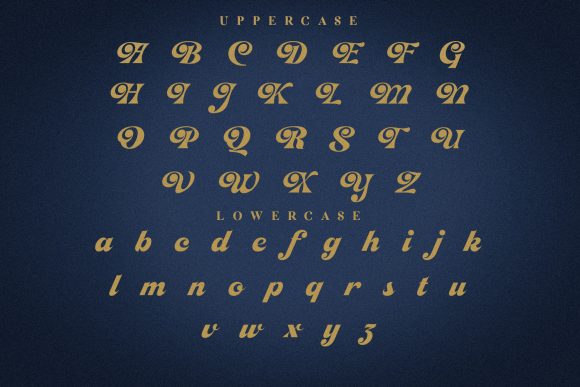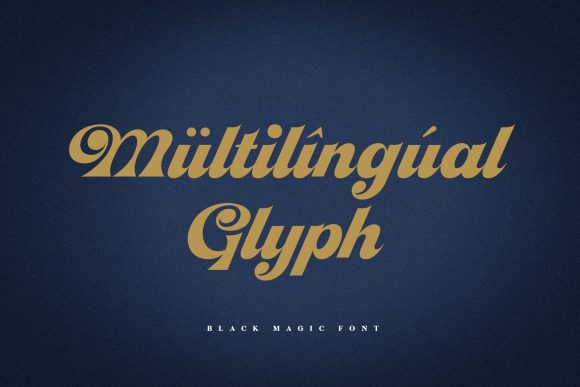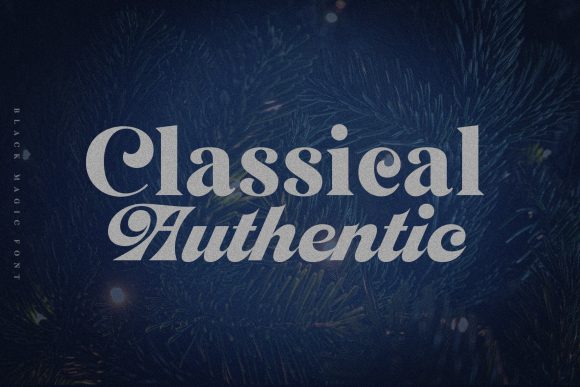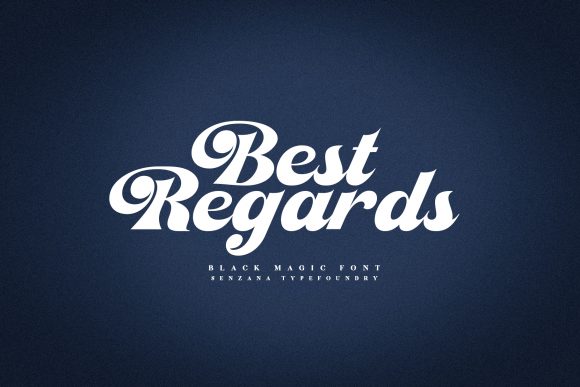
Unleash the Power of Black Magic Font: Elevate Your Designs with a Bold and Assertive Handwritten Style
In the world of typography, fonts play a crucial role in conveying the tone and personality of a design. Whether you’re a seasoned designer or a crafty DIY enthusiast, finding the right font can make all the difference in creating visually stunning and effective designs. If you’re on the hunt for a font that exudes confidence and sophistication, look no further than the Black Magic Font. This bold and assertive handwritten font is an incredibly versatile asset that can elevate any creation, regardless of the topic or theme.
The Power of Black Magic Font
Black Magic Font is a stunning example of a handwritten font that packs a punch. Its bold and assertive style makes it perfect for designs that require a strong and confident look. The font’s unique character and personality shine through in its elegant strokes and refined lettering. Whether you’re designing a logo, a poster, or a social media graphic, Black Magic Font is sure to make a statement.
What Makes Black Magic Font So Special?
So, what sets Black Magic Font apart from other fonts in its class? Here are just a few reasons why this font is an incredibly valuable asset for designers and crafters:
- Versatility: Black Magic Font is incredibly versatile and can be used for a wide range of design projects, from logos and posters to social media graphics and more.
- Bold and Assertive: This font’s bold and assertive style makes it perfect for designs that require a strong and confident look.
- Elegant Strokes: The font’s elegant strokes and refined lettering give it a sophisticated and polished look that’s sure to impress.
- Easy to Read: Despite its bold style, Black Magic Font is easy to read, making it perfect for designs that require a clear and concise message.
How to Use Black Magic Font in Your Designs
Now that we’ve covered what makes Black Magic Font so special, let’s dive into some practical tips on how to use it in your designs:
- Pair it with a Simple Background: Black Magic Font’s bold style can be overwhelming, so pair it with a simple background to let the font shine.
- Use it for Headlines: This font is perfect for headlines and titles, where its bold and assertive style can make a real impact.
- Experiment with Colors: Don’t be afraid to experiment with different colors to find the perfect combination that complements the font’s elegant strokes.
Who Can Benefit from Black Magic Font?
Black Magic Font is an incredibly versatile asset that can benefit a wide range of designers and crafters, including:
- Graphic Designers: Whether you’re designing logos, posters, or social media graphics, Black Magic Font is a valuable asset to have in your font library.
- Crafters: If you’re a crafty DIY enthusiast, Black Magic Font can add a touch of sophistication and elegance to your handmade projects.
- Marketers: This font’s bold and assertive style makes it perfect for marketing materials, such as brochures, flyers, and more.
In conclusion, Black Magic Font is a bold and assertive handwritten font that’s sure to elevate any design. Its unique character and personality make it an incredibly versatile asset that can benefit a wide range of designers and crafters. Whether you’re looking to add a touch of sophistication to your designs or make a bold statement, Black Magic Font is the perfect choice. So why wait? Add Black Magic Font to your font library today and unleash the power of bold and assertive typography in your designs!